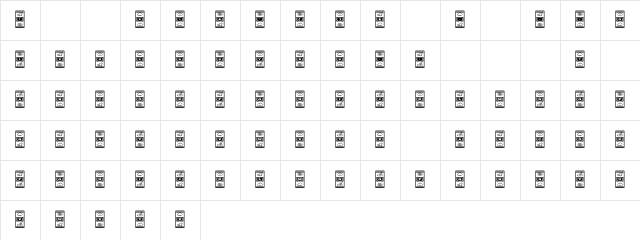
LuckyApe Regular
Design Context for LuckyApe Typeface
LuckyApe is a composed and adaptable typeface that performs quietly and consistently across a wide range of design contexts.